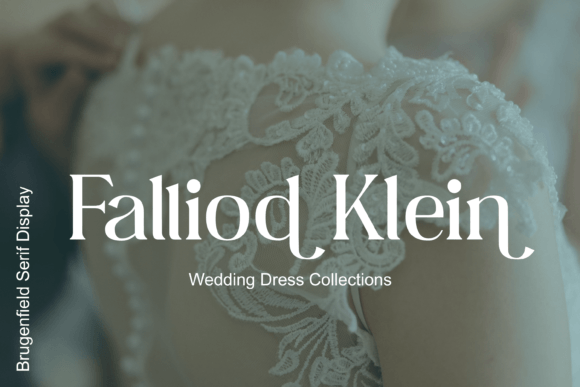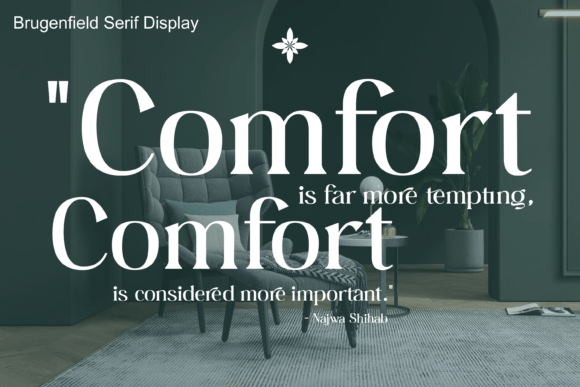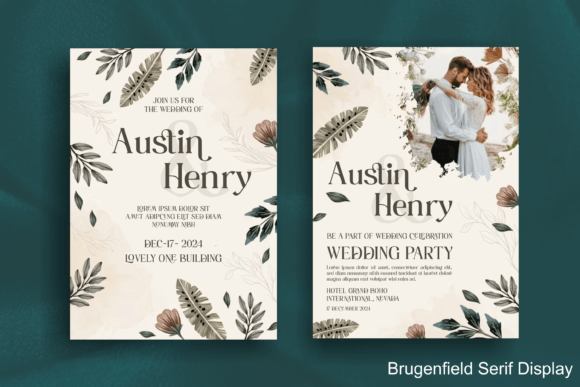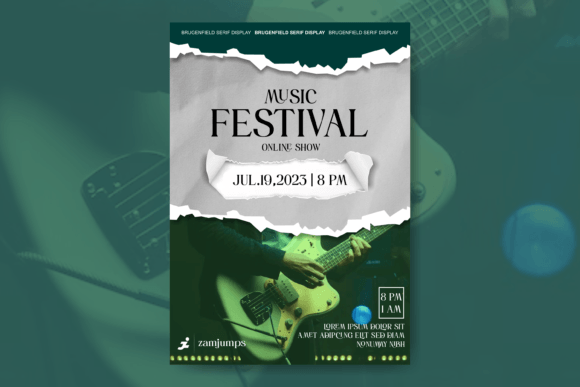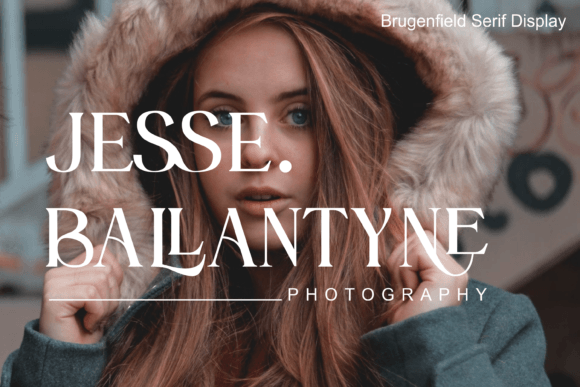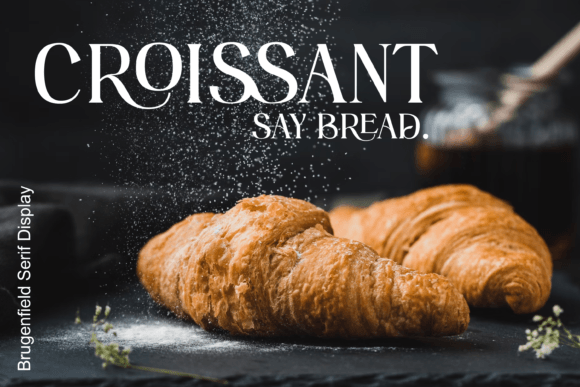
The Perfect Font for Making a Statement
Have you ever been brainstorming ideas for a new project and suddenly, the perfect font just pops into your head? That’s exactly what happened to us when we stumbled upon the Brugenfield Font. This modern serif display font is more than just a pretty face – it’s a game-changer for designers looking to add a touch of elegance and sophistication to their work.
The Brugenfield Font is designed to make a statement, with its unique ligature and refined aesthetic making it perfect for logos, headlines, and titles. Whether you’re working on a high-end fashion campaign or a wedding invitation, this font is sure to impress. And with its versatility, it’s not just limited to formal applications – it’s also great for packaging, magazines, and even novels.
Brugenfield Font Key Features
- Unique Characteristics: Brugenfield Font features a unique blend of modern and vintage elements, with intricate details and ornate flourishes that add a touch of elegance to any design.
- Language Support: The font family supports a wide range of languages, including Latin, Cyrillic, Greek, and many others, making it an excellent choice for global branding and design projects.
- Font Pairing: Brugenfield Font is designed to pair well with a variety of other fonts, from clean sans-serifs to classic serif fonts, allowing for endless design possibilities.
- Customization Options: The font family includes a range of customization options, including ligatures, swashes, and alternate characters, allowing designers to add a personal touch to their designs.
Brugenfield Font Review
Overall, I think the Brugenfield font is a decent addition to any designer’s toolkit. It has a certain charm to it that can add a touch of elegance to various projects. ✨
Here are some of the things that work well for the Brugenfield font:
- Unique aesthetic: The font has a distinct, vintage feel that can be useful for projects that require a touch of nostalgia.
- Legibility: Despite its unique style, the font is still relatively easy to read, especially at larger font sizes.
- Flexibility: The font comes in a range of weights and styles, making it suitable for a variety of applications.
- Limited expressiveness: While the font is unique, it may not be the best choice for projects that require a lot of emphasis or expressiveness.
- Not ideal for small text: At smaller font sizes, the font can become difficult to read due to its complex strokes and intricate details.
In terms of overall impression, I would say that the Brugenfield font is a solid choice for designers who are looking for a unique, elegant font that can add a touch of sophistication to their projects. However, it may not be the best choice for projects that require a lot of emphasis or expressiveness.
Alternatives to Brugenfield Font
Playfair Display is a luxurious and elegant serif font, perfect for titles and headings. It features intricate details and a classic feel. Use it when you want to add sophistication and refinement to your design. Compared to Brugenfield Font, Playfair Display has a more ornate and traditional look, making it suitable for high-end branding and luxury products.
Pacifico is a beautiful and modern script font, ideal for creating a warm and welcoming atmosphere. It features flowing lines and a relaxed feel. Use it when you want to add a touch of elegance and sophistication to your design. Compared to Brugenfield Font, Pacifico has a more casual and laid-back look, making it suitable for creative and artistic projects.